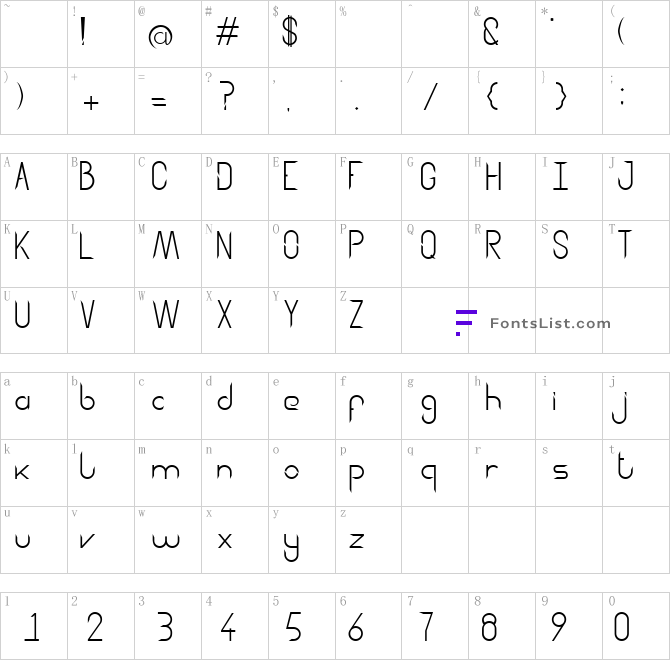
- Font Name:Aggressor
Aggressor.ttf is a very beautiful artistic font, Aggressor.ttf is widely used in the design and printing of various books and pictures,Aggressor.ttf has a strong visual impact,Aggressor.ttf is a commonly used font in newspapers, magazines and books, and is used in posters, e-commerce Poster design, store design, logo design, font design and other fields.Aggressor.